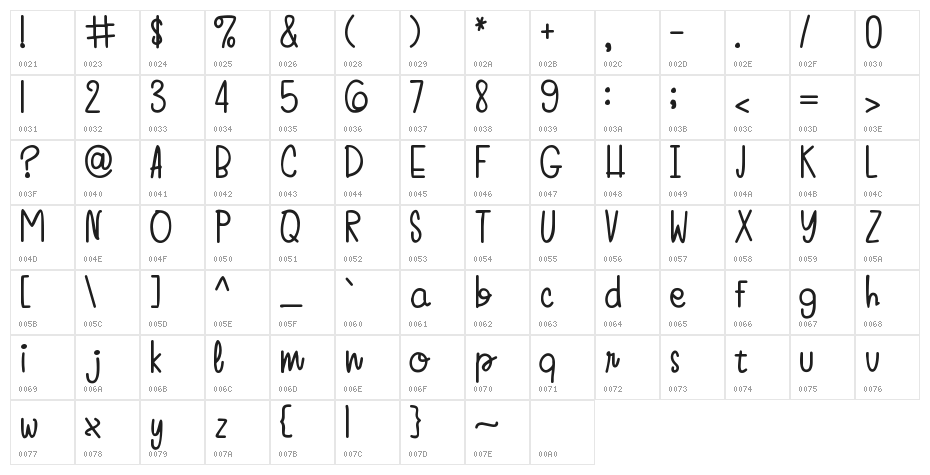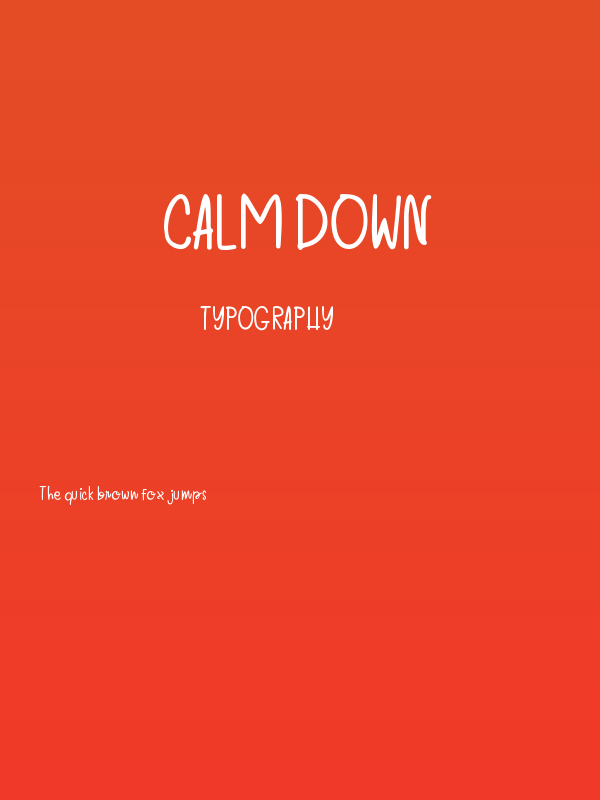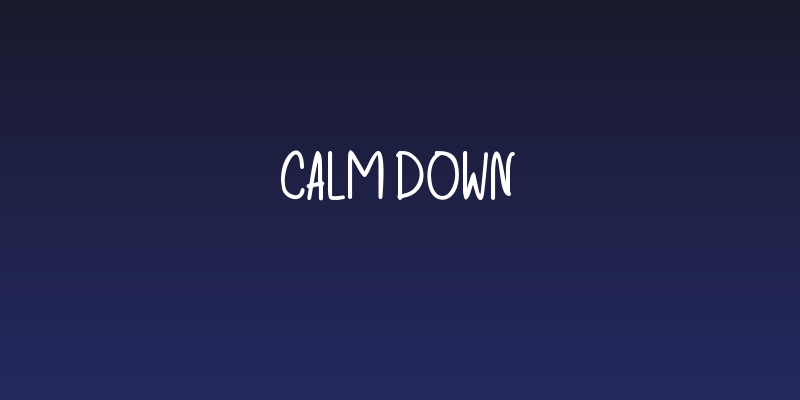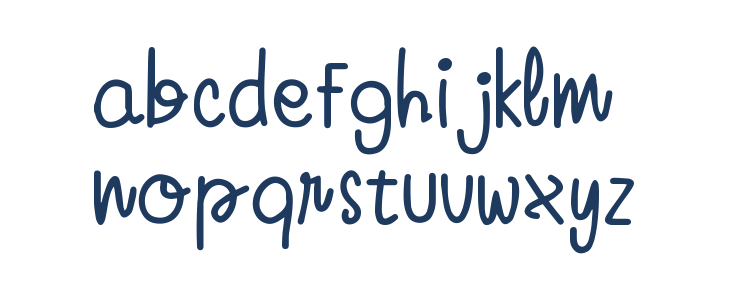
Calm Down Font
Calm Down Description
This playful and casual font features a handwritten style with a relaxed and informal appearance. The letters are slightly irregular, giving it a charming and approachable feel. The strokes are consistent in thickness, providing a uniform look across all characters. The uppercase letters are tall and narrow, while the lowercase letters have a more rounded and friendly appearance. The numbers and special characters maintain the same playful aesthetic, making this font versatile for various creative projects. Its overall style is inviting and easygoing, perfect for conveying a sense of warmth and friendliness.
| Proposed Projects | Ideal for greeting cards, children's books, casual branding, and social media graphics. |